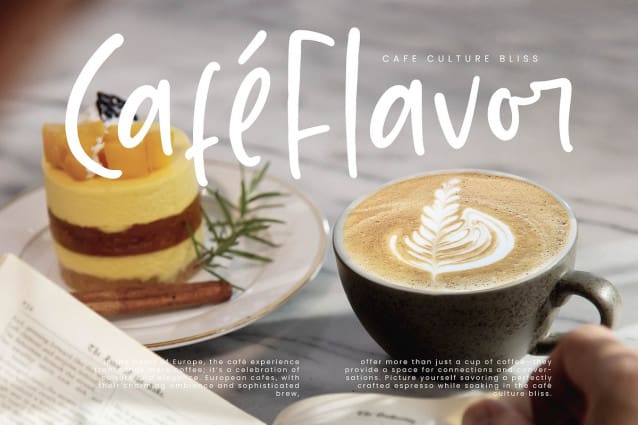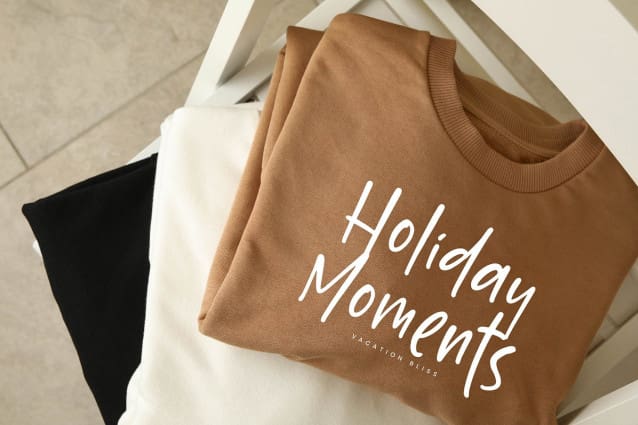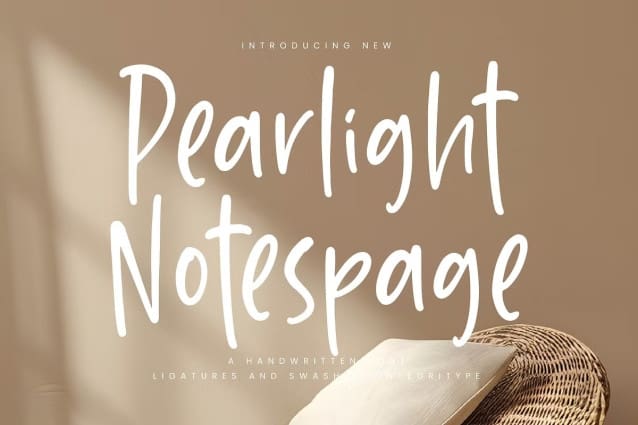
Pearlight Notespage Font
Pearlight Notespage Font – Handwritten Font, from Integritype Studio, perfect for any project like: logos, branding projects, homewares designs, product packaging, mugs, quotes, posters, shopping bags, t-shirts, covers books, business cards, invitation cards, greeting cards, labels, photography, watermarks, special events and all your other luxury projects that require a premium taste.